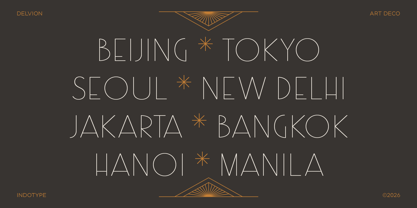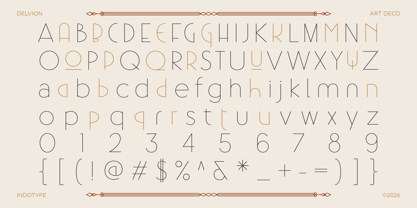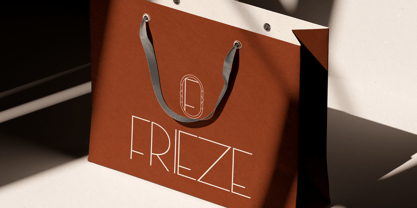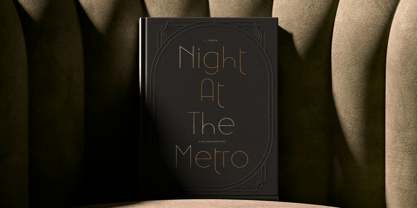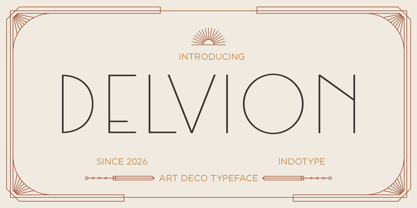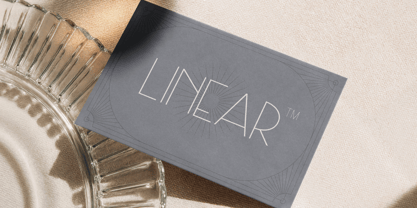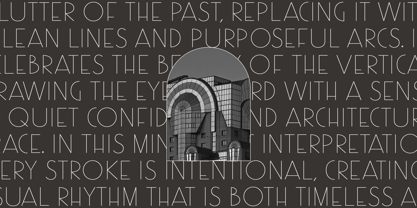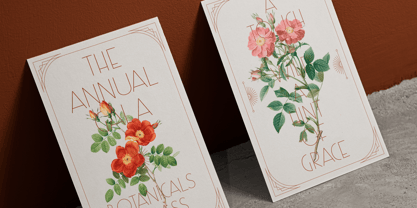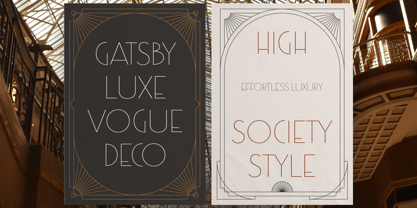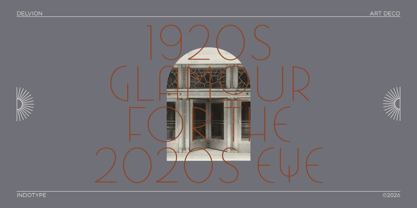
IT Delvion
by Indotype
The IT Delvion Font Family was designed by Dede Kurniawan and published by Indotype. IT Delvion contains 2 styles and family package options.
Delvion is a sophisticated Art Deco typeface that captures the opulence, geometry, and streamlined glamour of the 1920s and 30s. Characterized by its sharp, clean lines, symmetrical forms, and elegant decorative details, this font exudes an air of luxury, confidence, and timeless style. It masterfully blends the bold, graphic sensibility of the Machine Age with a refined sense of balance and ornamentation. Perfect for projects that demand a touch of vintage grandeur with modern clarity, Delvion elevates luxury branding, editorial headlines, upscale packaging, and identity design. Whether for a high-end hotel, a fashion label, or a special event, Delvion brings the iconic Roaring Twenties aesthetic into the contemporary design landscape with impeccable grace and authority. • Ideal for: Luxury Branding & Logos, Fashion Editorials, Upscale Hotel & Restaurant Identity, Wedding Invitations, Perfume & Jewelry Packaging, Period Film & Theater Graphics. • Classification: Display, Serif/Decorative, Art Deco. • Attributes: Luxurious, Geometric, Elegant, Symmetrical, Bold, Timeless, Glamorous.